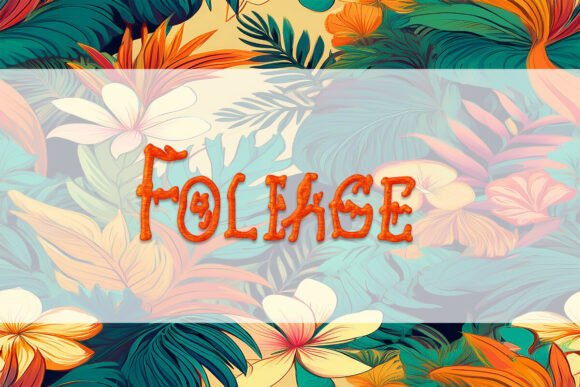
Unleash Your Creativity with Foliage Font: A Designer’s Delight
I still remember the design project that led me to discover the Foliage Font. I was working on a branding campaign for a local nursery, and I needed a font that could capture the essence of nature and growth. After hours of searching, I stumbled upon Foliage Font, and it was love at first sight! The unique blend of elegance and playfulness made it the perfect fit for my project. In this article, I’ll share my experience with Foliage Font, its features, and how to make the most of it in various design platforms.
An Honest Review of Foliage Font
What I Love About Foliage Font
- ✨ Versatility: Foliage Font is an incredibly versatile font that can be used for a wide range of design projects, from shirts and stickers to magazines and posters.
- ✅ Elegant and Playful: The font’s unique design strikes a perfect balance between elegance and playfulness, making it perfect for brands that want to convey a sense of sophistication and whimsy.
- 💡 OpenType Features: Foliage Font comes with a range of OpenType features, including glyphs and stylistic alternates, that allow for endless creativity and customization.
While Foliage Font is an amazing font, there are a few quirks to be aware of:
- 🤔 Limited Multilingual Support: Foliage Font may not support all languages, so it’s essential to check the font’s capabilities before using it for a multilingual project.
- ⚠️ Font Size Limitations: Some users have reported that Foliage Font can become a bit blurry at very small font sizes. It’s best to use it at larger sizes to ensure optimal clarity.
The Story Behind Foliage Font
Foliage Font was designed by a team of creatives who wanted to capture the essence of nature and growth in a font. Inspired by the intricate patterns of leaves and flowers, they crafted a font that’s both elegant and playful. The result is a font that’s perfect for designs that require a touch of sophistication and whimsy.
| Font Name | Foliage Font |
| Author | Heidi Vargas-Smith |
Q: What is Foliage Font?
A: Foliage Font is a unique and versatile font that’s perfect for designs that require a touch of elegance and playfulness.
Q: Is Foliage Font suitable for digital designs?
A: Absolutely! Foliage Font is perfect for digital designs, including social media graphics, blog posts, and website headers.
In conclusion, Foliage Font is an amazing font that’s perfect for designers, crafters, and creative hobbyists. Its unique blend of elegance and playfulness makes it suitable for a wide range of design projects. With its OpenType features, glyphs, and stylistic alternates, Foliage Font offers endless creativity and customization possibilities. Whether you’re designing for print or digital, Foliage Font is sure to spark joy and make your designs stand out!